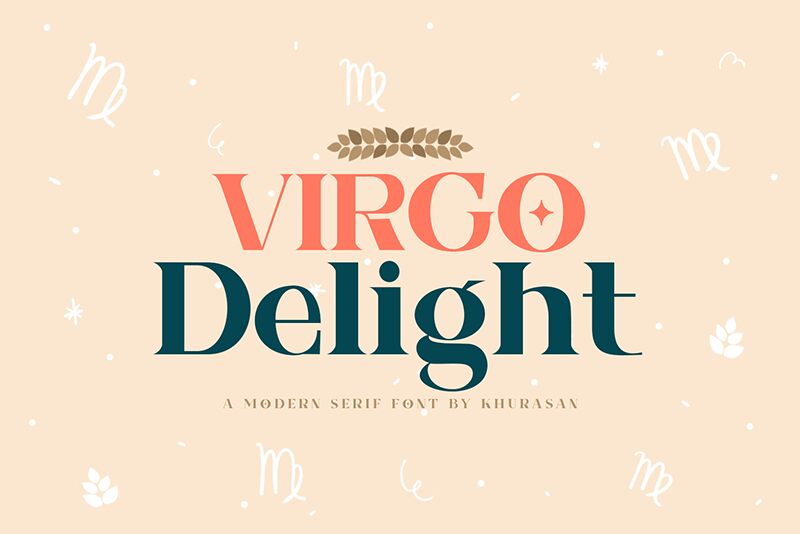
Virgo Delight font family by Khurasan™ is a modern serif typeface with an elegant design that will look delightful on your prints. It includes two font styles to offer designers more versatility and options for their creative projects. Add character to your texts with a chic contemporary font or elevate existing designs with a better associated font family.
The font family combines simplicity and beauty, reflected in the sleek, sophisticated letter forms of this typeface. This font, which is best used in big sizes, is eligible for personal use and requires a commercial license if you are looking to use it on your branding, invitations, apparel, magazines, publishing, or other projects meant for profit.